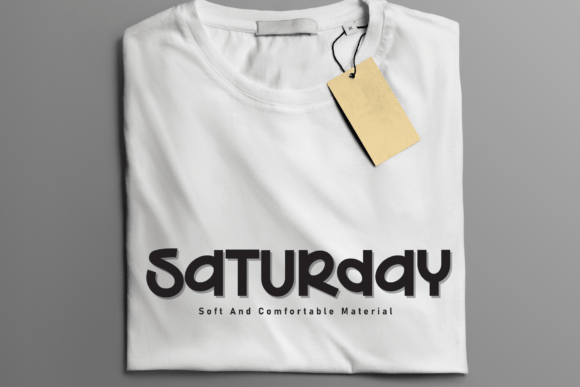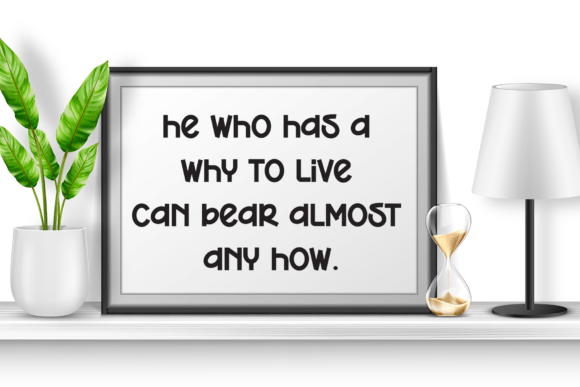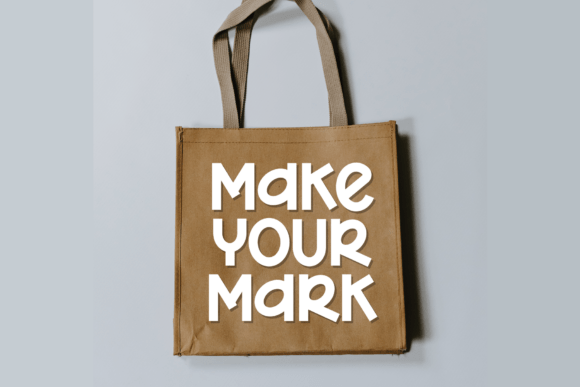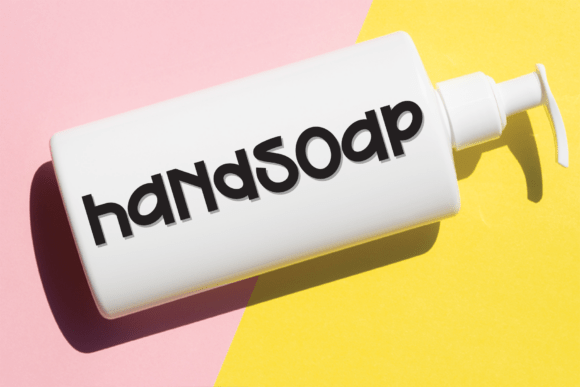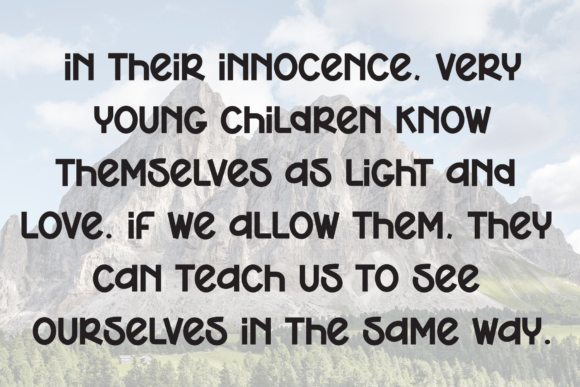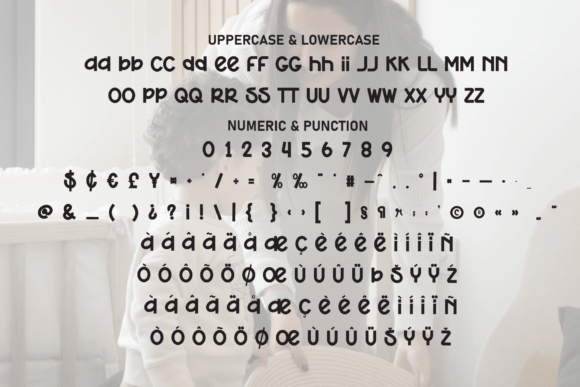
Introduction to Chubby Mama Font
As a designer, there’s nothing quite like the thrill of stumbling upon the perfect font to bring a creative project to life. Remember the moment you finally found that one special font that made your design shine? For many of us, it’s a moment of pure joy, and it’s what makes our job so rewarding.
That’s exactly what happened when we discovered the Chubby Mama Font – a charmingly handwritten display font that’s sure to add a dash of fun and distinctiveness to any design. With its lovable style, this font is the perfect choice for creating engaging wedding invitations, poignant cards, or any other project that requires a touch of whimsy.
Key Features of Chubby Mama Font
- Unique, playful design perfect for creative projects and design resources.
- Character count: 256 glyphs, covering a wide range of languages and characters.
- Resolution: Optimized for high-resolution displays, ensuring crisp and clear text rendering.
- Perfect for adding a touch of whimsy and personality to your design, making it ideal for creative projects and design resources.
Honest Review: Chubby Mama Font
I recently stumbled upon the Chubby Mama Font, and I’m excited to share my thoughts on this design resource. As a designer, I’m always on the lookout for high-quality fonts that can elevate my creative projects.
One of the things that stands out about the Chubby Mama Font is its playful and approachable vibe. It’s perfect for projects that need a friendly touch, such as children’s books, food labels, or even social media graphics.
- High-quality design that’s perfect for a variety of creative projects
- Transparency options, allowing for a seamless integration with any design
- Limited character set, which may not be suitable for longer texts
- No bold or italic versions, which can be a drawback for designers who need more options
Overall, the Chubby Mama Font is a great addition to any designer’s toolkit. While it has some limitations, its playful vibe and high-quality design make it a valuable resource for creative projects. If you’re looking for a fun and approachable font, the Chubby Mama Font is definitely worth checking out.
Tips for Getting the Most Out of Chubby Mama Font
For the best results, use the Chubby Mama Font with a transparent background to create a clean and modern design. Experiment with different font sizes and styles to add depth and interest to your designs.
The Chubby Mama Font is perfect for creative projects such as social media graphics, blog posts, and marketing materials. Its playful style makes it ideal for children’s products, food labels, and other fun designs.